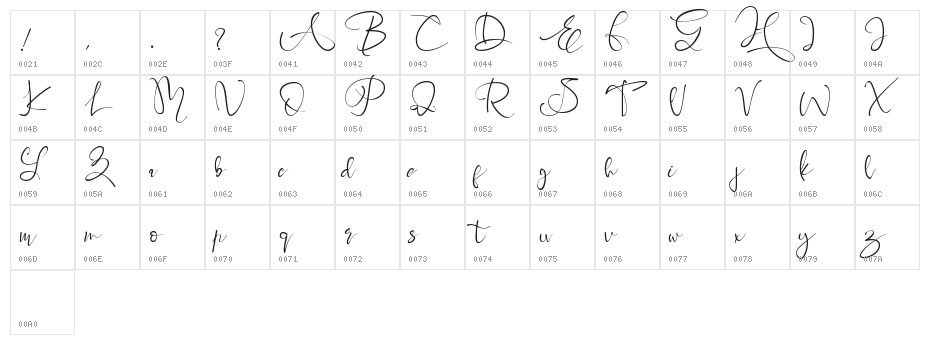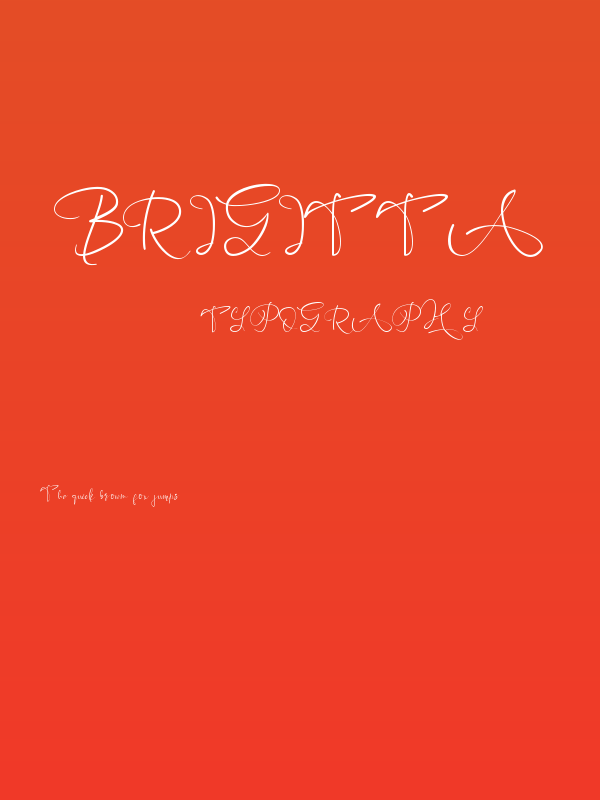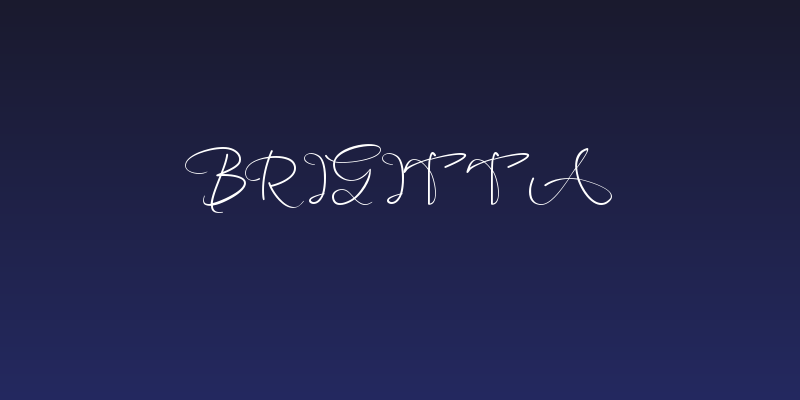
Brigitta Font
Brigitta Description
This font exhibits a flowing, elegant script style with intricate loops and swirls, creating a sense of sophistication and grace. The uppercase letters are particularly ornate, featuring elaborate flourishes that extend beyond the baseline and cap height, adding a decorative flair. The lowercase letters maintain a more restrained elegance, with smooth, continuous strokes that enhance readability while retaining a stylish appearance. The font's overall design is reminiscent of traditional calligraphy, yet it maintains a modern touch, making it suitable for a variety of contemporary applications. The characters are well-spaced, ensuring clarity and legibility despite the decorative elements.
| Overall Style | Elegant, Modern |
| Proposed Projects | Ideal for wedding invitations, elegant branding, greeting cards, and upscale packaging. |